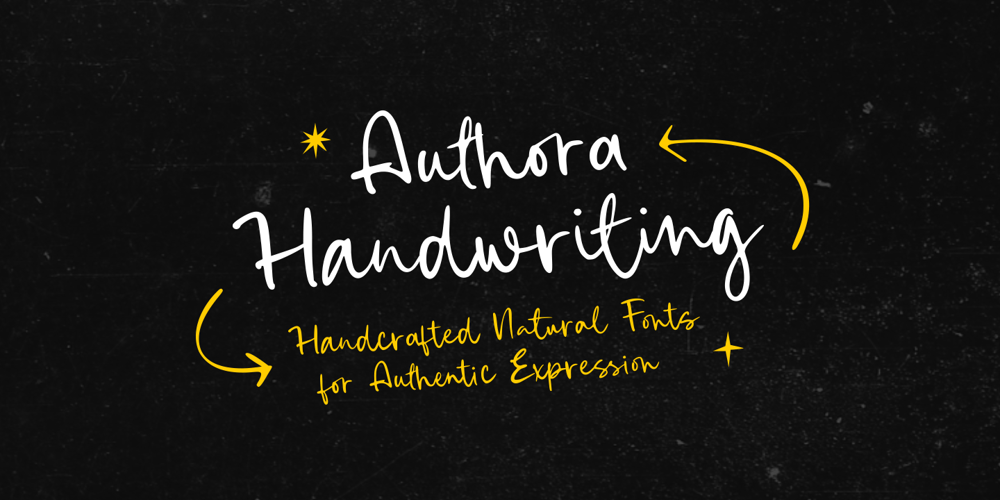
Authora Handwriting Font Family was designed by Muhamad Yusron Billah and published by Sronstudio. Authora Handwriting contains 1 styles and family package options. Introducing “Authora Handwriting,” a captivating script font meticulously crafted to emulate authentic handwriting. With its natural flow and intricate ligatures, this font captures the essence of genuine handwritten text. Perfect for projects that demand a personal touch and authenticity, such as invitations, branding, or editorial designs, “Authora Handwriting” adds a unique charm and character to your creations, ensuring they stand out with a touch of genuine handwritten elegance.Features: Uppercase & Lowercase Numeral & Punctuation PUA Encoded Multilingual support Simple Installation Work both on Mac and Windows Thank you very much 🙂